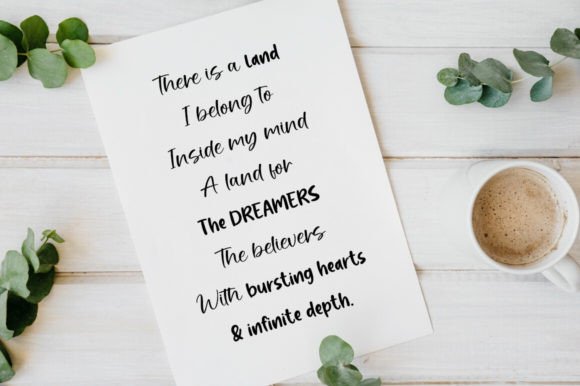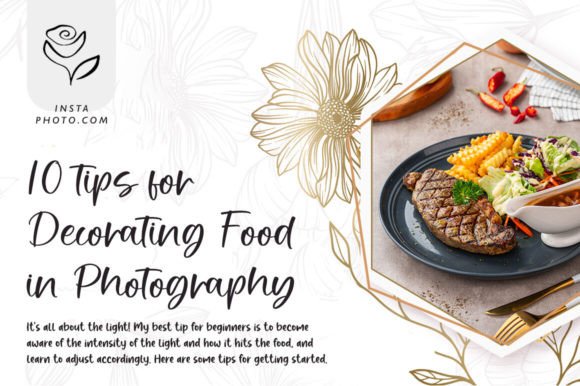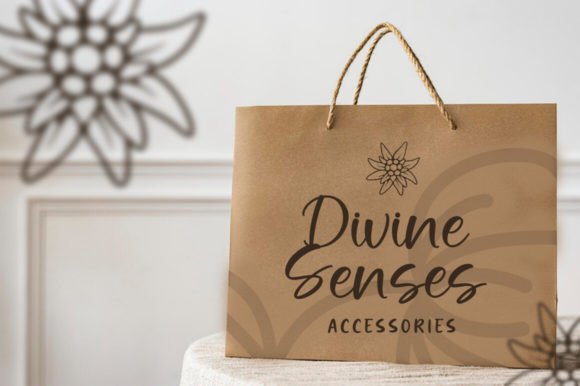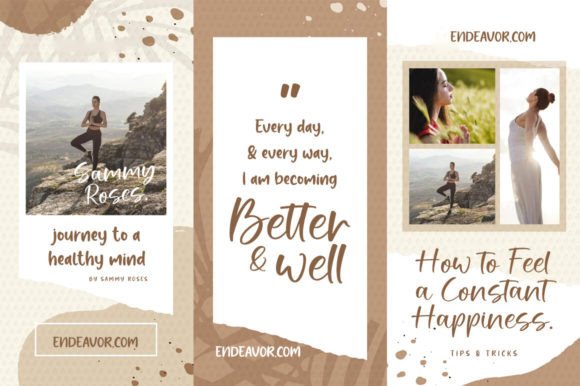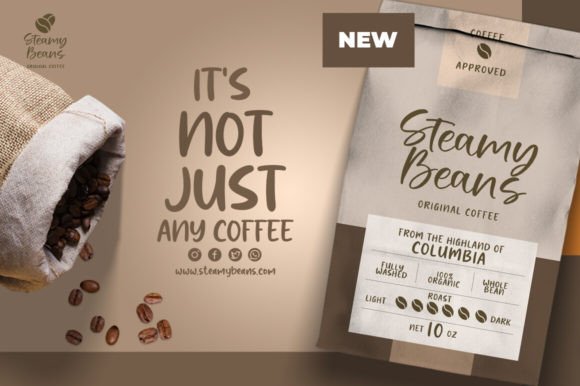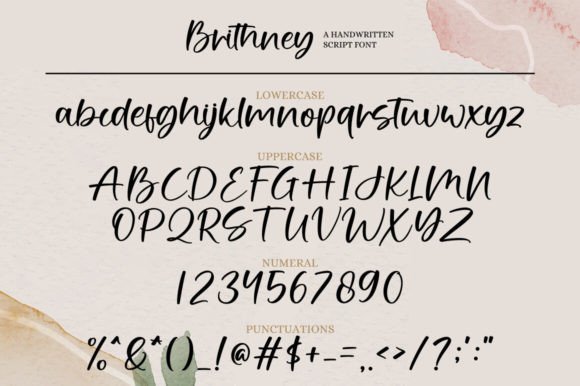
Introduction to Brithney Cookies Font
Brithney Cookies consists of two fonts designed to complement each other perfectly.
Together or apart, these fonts are ideal for adding a chic and cheery touch to your crafts .
Key Features of Brithney Cookies Font